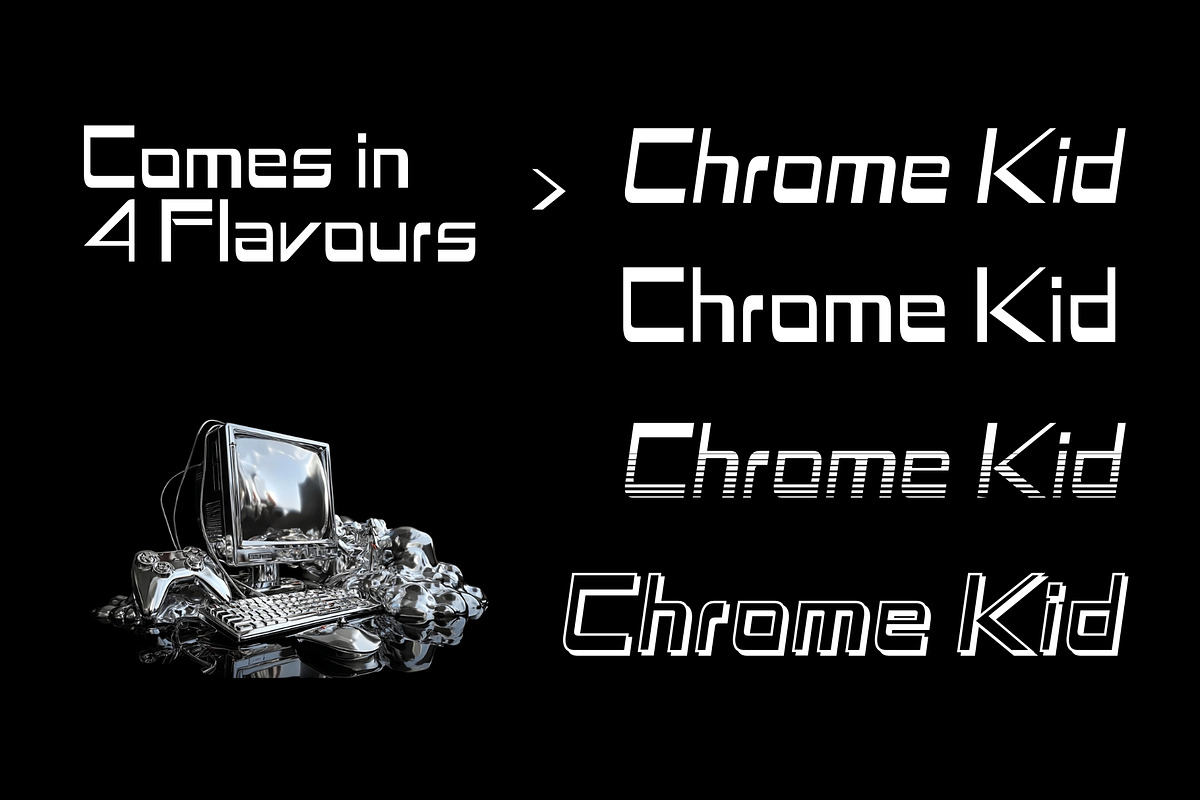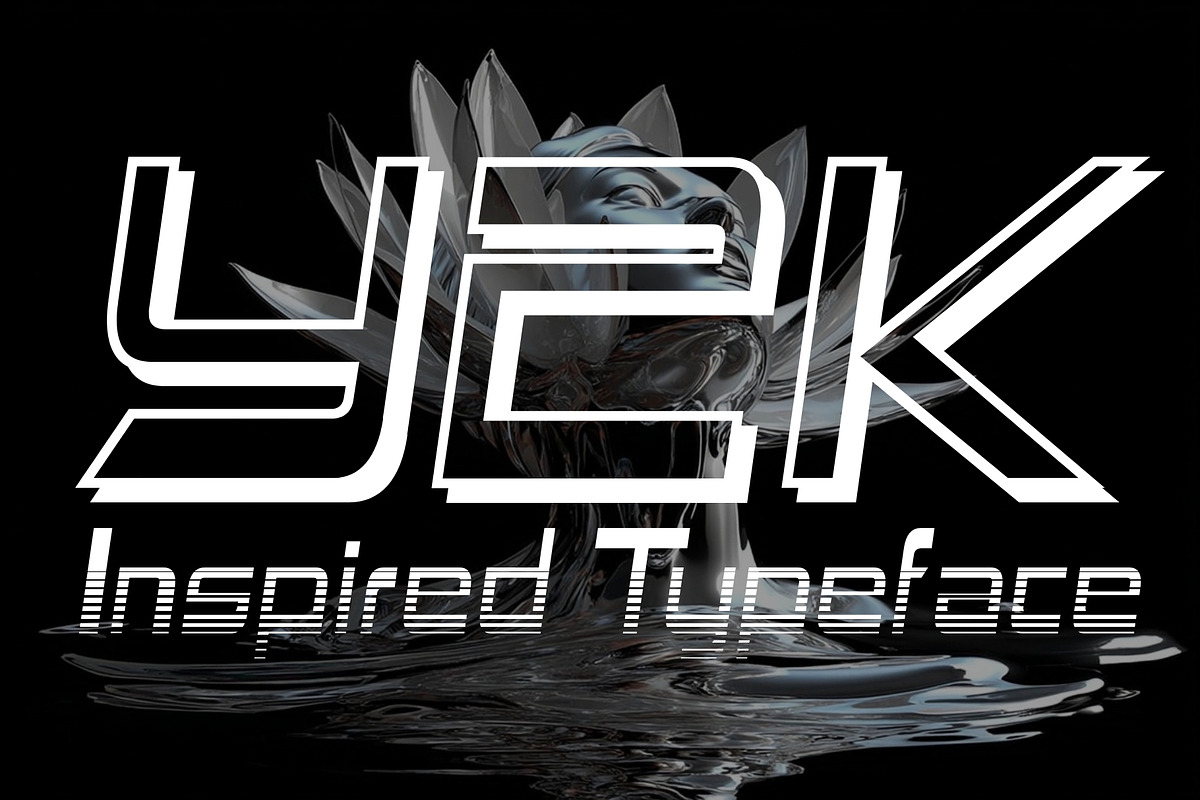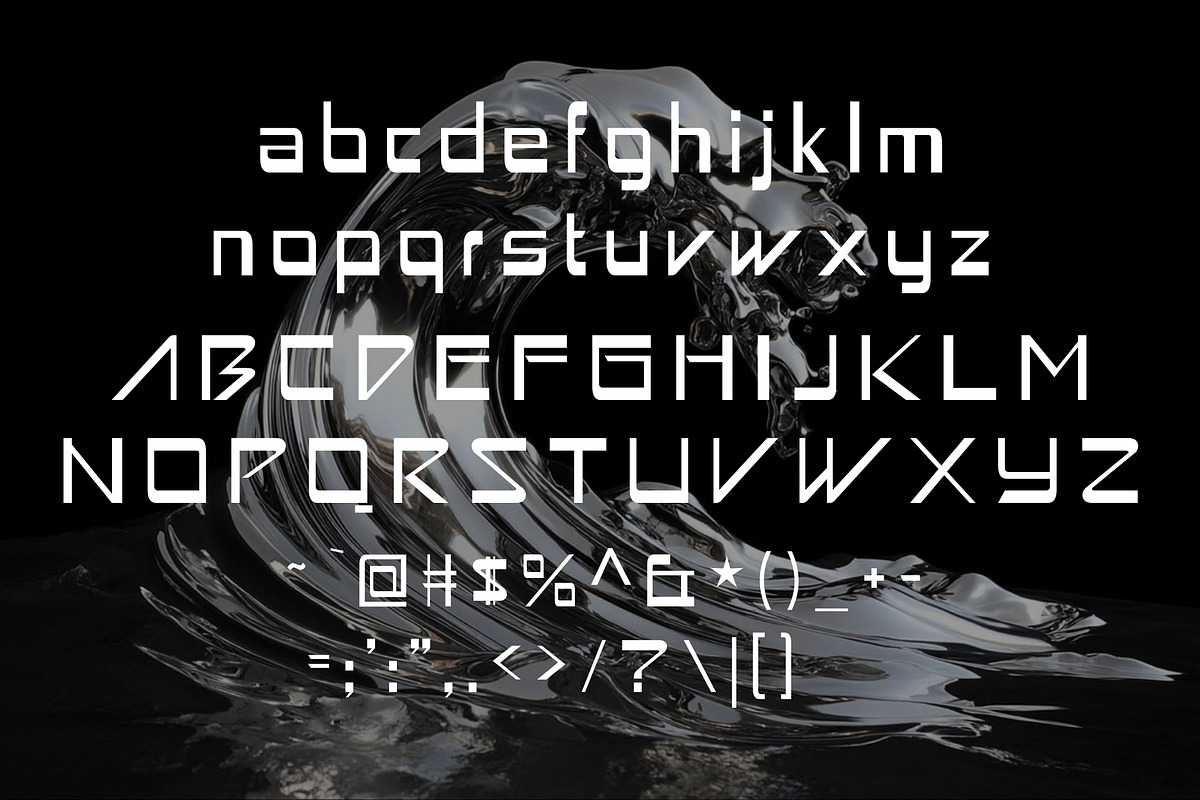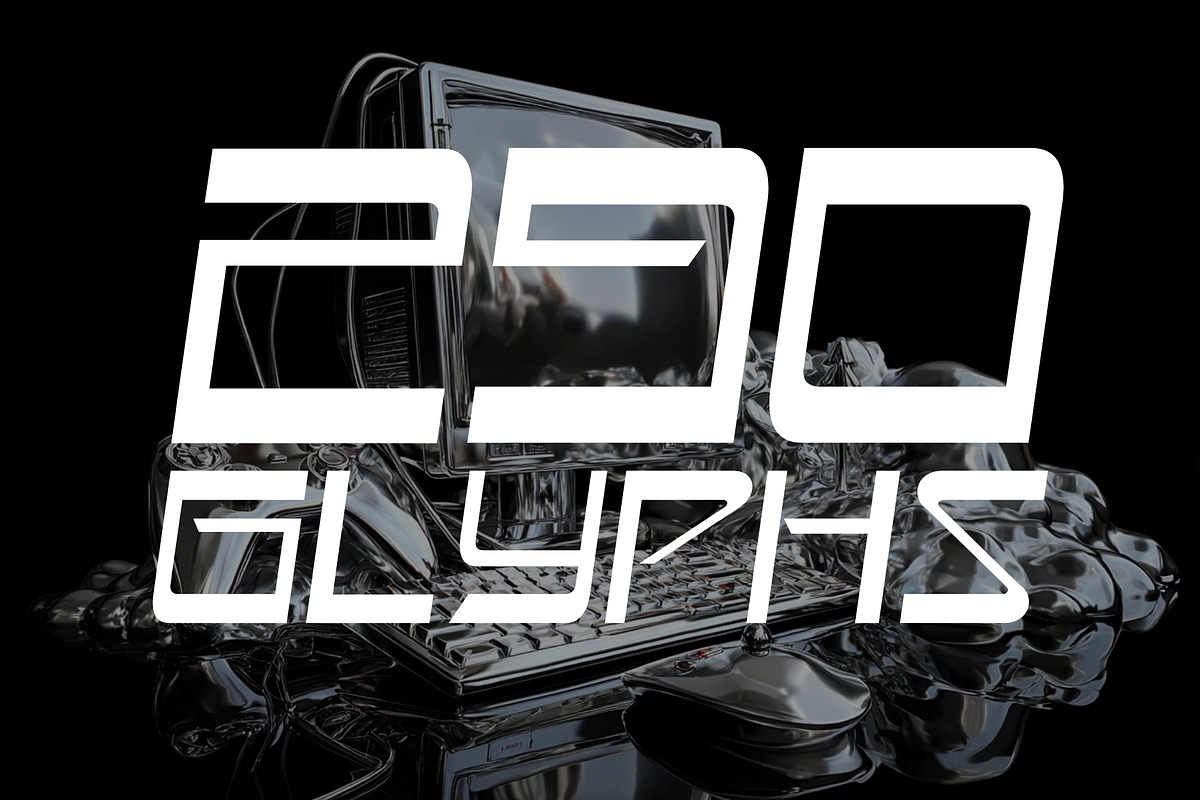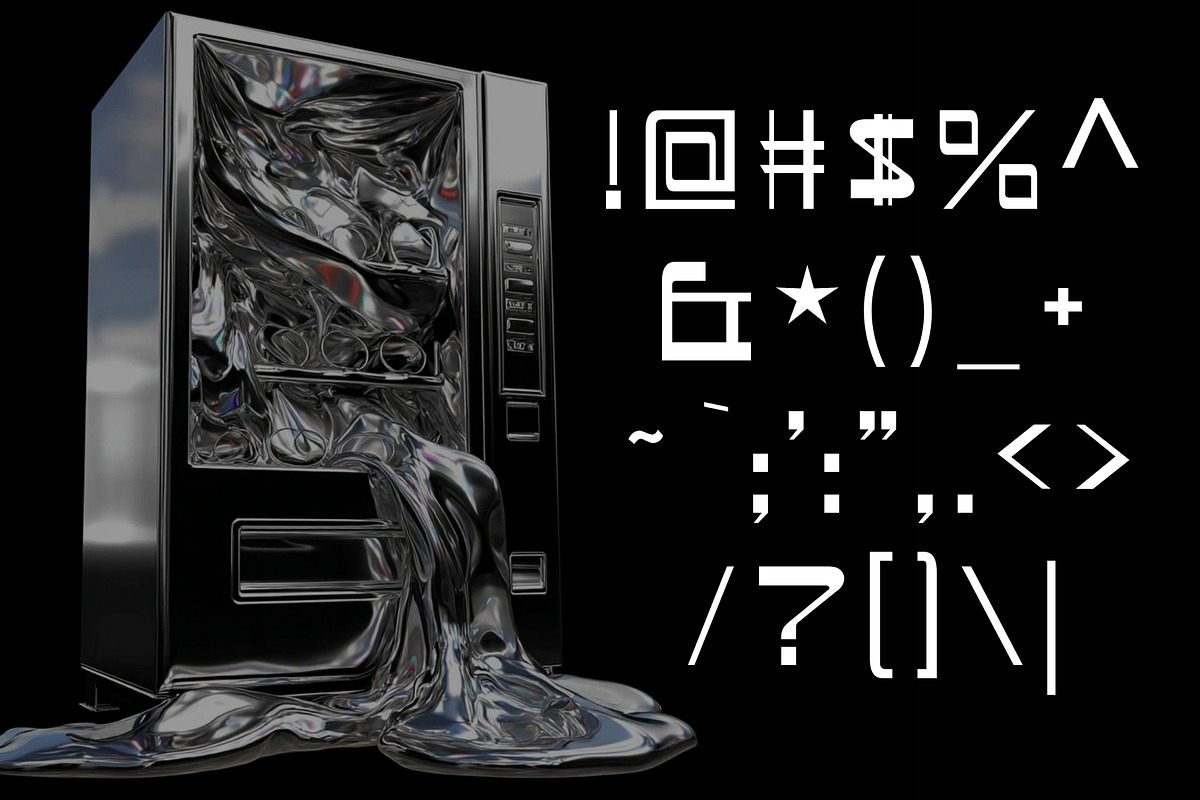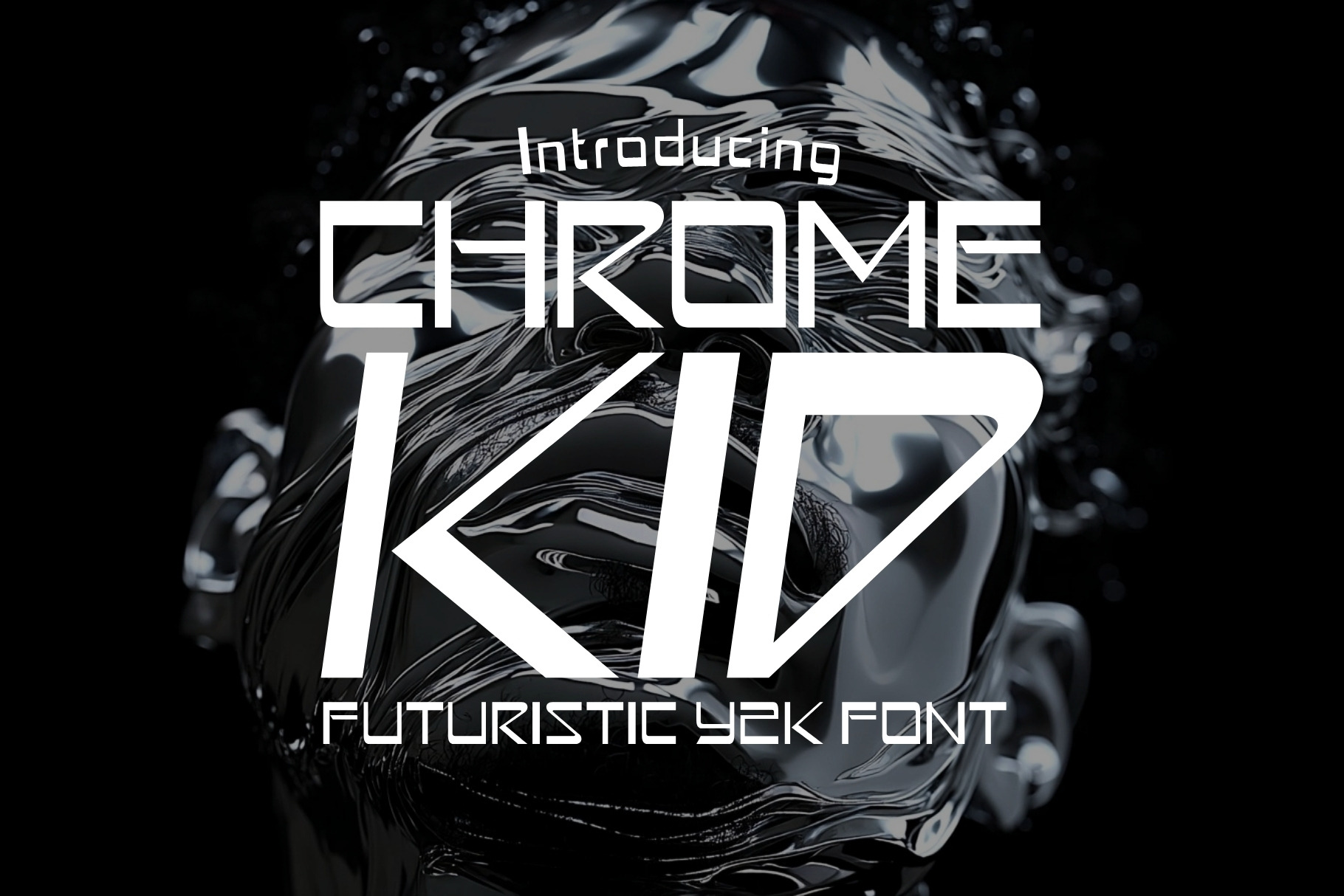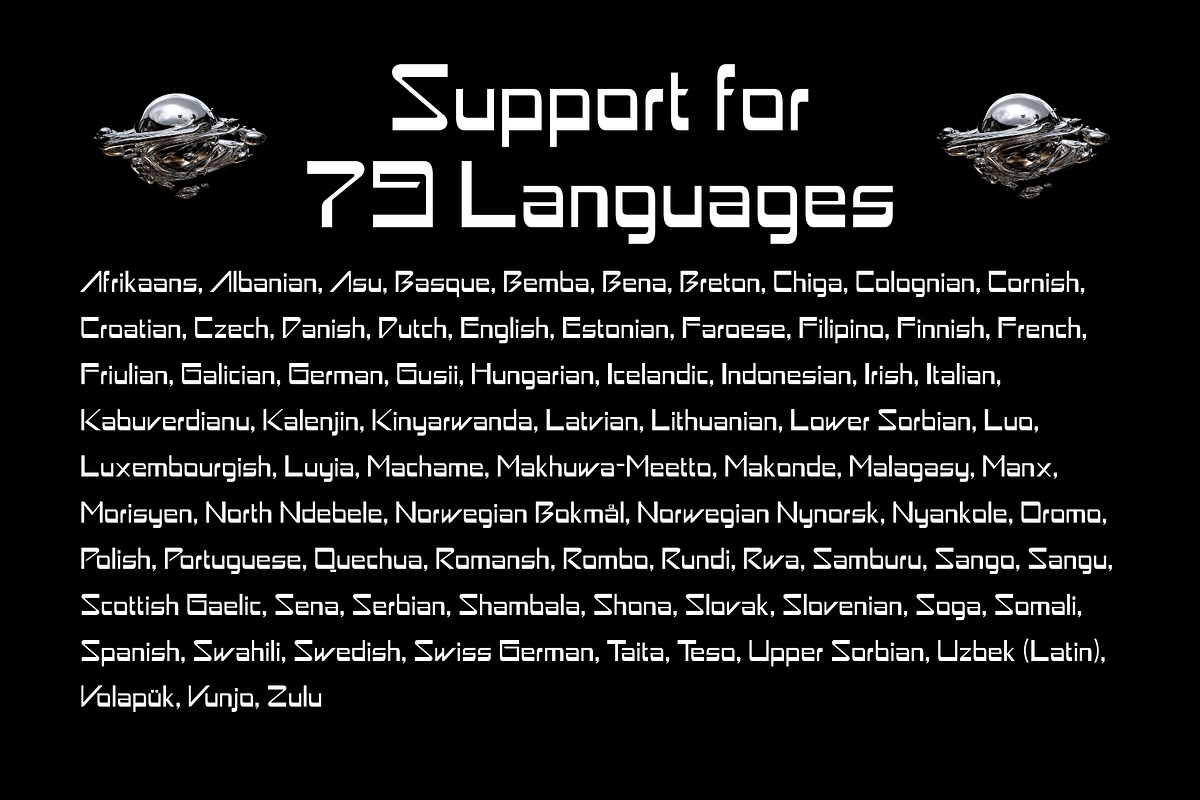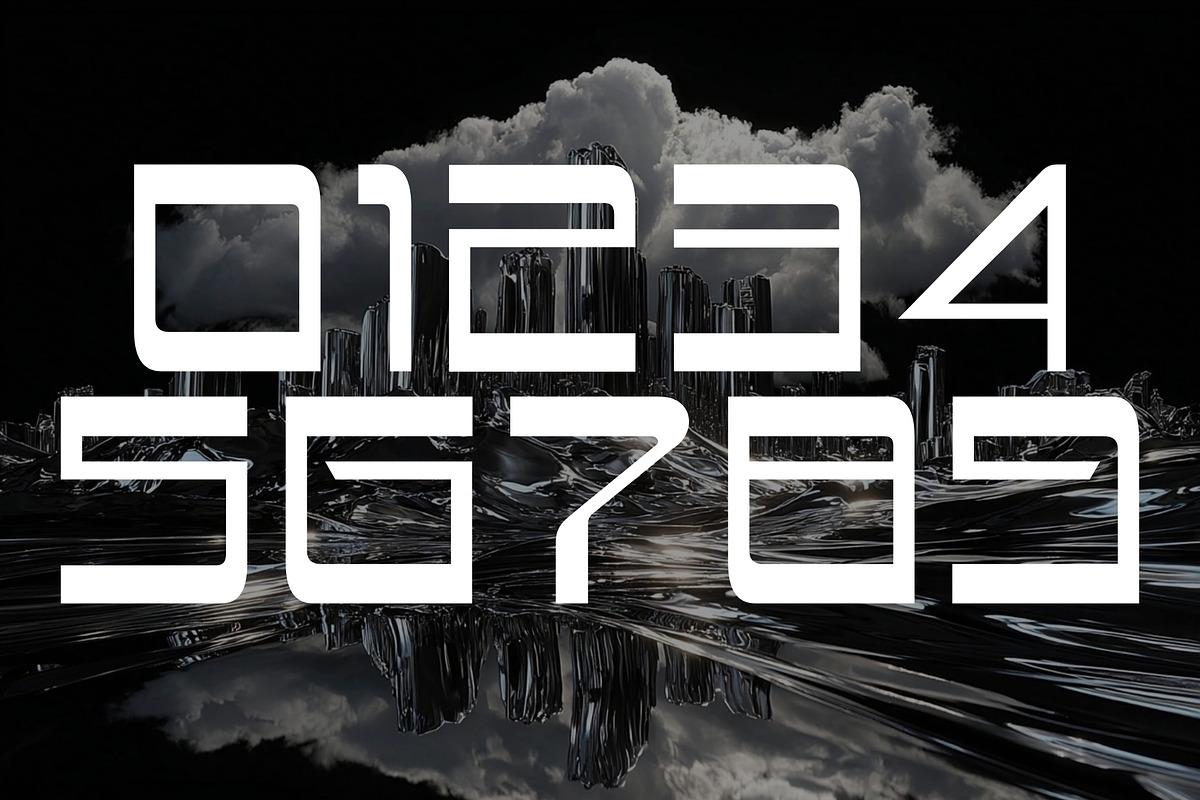
ChromeKid - Futuristic Y2K Font
Plug into the pulse of the early 2000s with ChromeKid, a bold and versatile futuristic font inspired by the digital dreams and techno aesthetics of the Y2K era. With sleek curves, metallic vibes, and a touch of cyber rebellion, ChromeKid is built for designs that demand attention.
This typeface comes in four distinct styles (Regular, Italic, Shaded, and Outline,) giving you the flexibility to create layered, dynamic visuals that scream retro-future cool. Whether you're designing for fashion, music, gaming, or tech, ChromeKid delivers a high-impact look that’s both nostalgic and forward-thinking.
- Inspired by early 2000s futuristic graphics and Y2K culture
- Includes 4 styles: Regular, Italic, Shaded, and Outline
- Perfect for posters, album covers, branding, web design, and digital art
- Ideal for techwear, cyberpunk, glitchcore, and retro-futuristic themes
- Designed to evoke chrome textures, neon lights, and digital rebellion
ChromeKid is your go-to font for channeling the energy of the Y2K era, where fashion met tech, and design went full throttle. It’s bold, it’s shiny, it’s unapologetically digital.